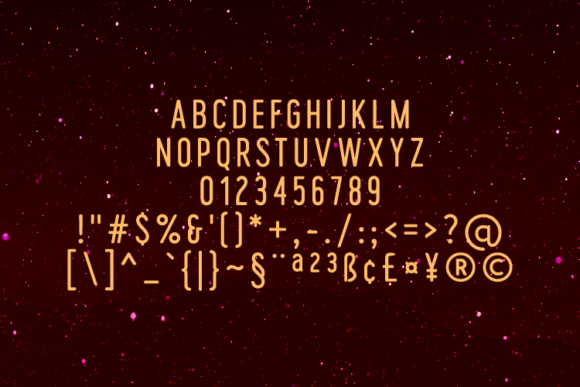
Cynzia Font: A Harmonious Blend of Geometric and Rounded Elements
In the realm of typography, the Cynzia font has emerged as a distinctive and versatile typeface that effortlessly merges geometric precision with subtle softness. This condensed geometric sans serif, characterized by its rounded corners, presents a unique visual appeal reminiscent of the gentle curves of a moon. Cynzia’s design draws inspiration from geometric sans serifs, particularly those featuring circular forms at the tops and bottoms of characters, while integrating straight sides to achieve a sturdy yet economical aesthetic.
The Design Philosophy Behind Cynzia
Cynzia’s creation is rooted in a thoughtful blend of traditional geometric sans serif principles with a modern twist. The typeface embodies a harmonious balance between sharp, clean lines and rounded, approachable curves. This duality allows Cynzia to convey both a sense of precision and a softer, more inviting feel, making it exceptionally versatile for a wide range of design applications.
The incorporation of straight sides into Cynzia’s design not only enhances its sturdiness but also contributes to its economical use of space. This feature is particularly beneficial in designs where typography needs to be clear and legible without occupying excessive space. The condensation of Cynzia’s proportions strikes an optimal balance, ensuring that the typeface remains highly legible even at smaller sizes, while also standing out when used in larger displays.
Key Features of Cynzia Font
- Condensed Geometric Design: Cynzia’s condensed proportions make it an ideal choice for designs where space efficiency is crucial, without compromising on legibility or aesthetic appeal.
- Rounded Corners: The subtle rounding of Cynzia’s corners adds a touch of softness, preventing the typeface from appearing too harsh or industrial.
- Geometric Inspiration: Drawing from geometric sans serifs, Cynzia incorporates circular forms at the character extremities, contributing to its distinctive and memorable appearance.
- Versatility: Cynzia’s unique blend of geometric and rounded elements makes it suitable for a broad spectrum of design projects, from digital interfaces to print materials.
Applications of Cynzia Font
Cynzia’s versatile nature makes it an excellent choice for various design applications. In digital design, its legibility on screens, combined with its aesthetic appeal, makes it suitable for websites, mobile apps, and digital marketing materials. For print, Cynzia can add a modern and clean look to brochures, posters, and business cards, while its condensed design is particularly advantageous in layouts requiring efficient use of space.
In branding, Cynzia offers a unique opportunity to create a distinctive visual identity. Its blend of sharp and rounded features can convey a brand’s commitment to innovation and approachability, making it an attractive choice for companies looking to stand out in their industry.
Cynzia font represents a significant addition to the typographic landscape, offering designers and crafters a tool that combines the best of geometric precision and soft, rounded aesthetics. Its design philosophy, rooted in a balanced blend of straight and curved elements, results in a typeface that is not only visually appealing but also highly functional across various design contexts. Whether for digital projects, print materials, or branding initiatives, Cynzia provides a versatile and stylish solution that can elevate the impact and effectiveness of design work.
As typography continues to evolve, Cynzia stands out as a testament to the power of thoughtful design, where the merging of seemingly disparate elements leads to the creation of something truly unique and valuable. For designers and crafters seeking a typeface that embodies both modernity and timelessness, Cynzia is undoubtedly worth exploring.